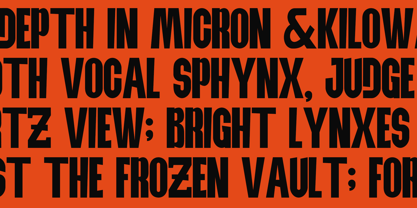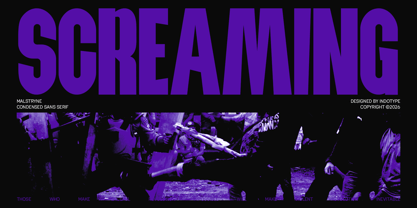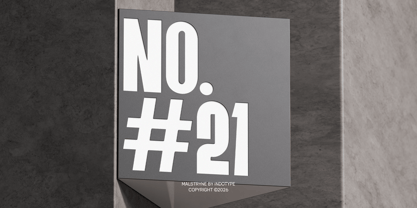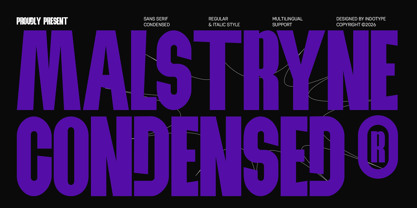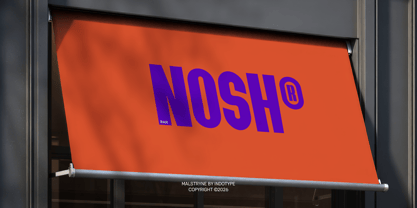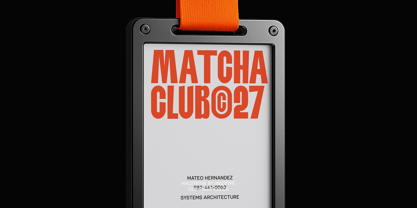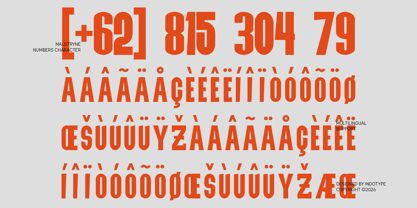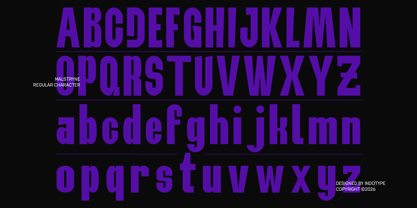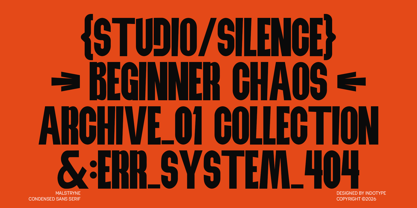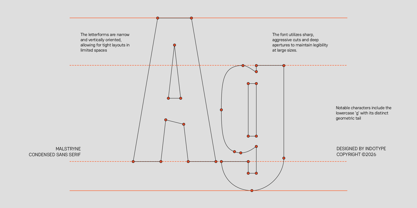
IT Malstryne
by Indotype
The IT Malstryne Font Family was designed by Frederik Aristaputra and published by Indotype. IT Malstryne contains 2 styles and family package options. More about this family
Malstryne is a commanding condensed sans-serif typeface designed for projects that demand presence within limited space. Its tightly packed letterforms, vertical emphasis, and strong shoulders create a dense, powerful texture that commands attention without sacrificing legibility. This is typography that stacks, compresses, and delivers impact—perfect for headlines, banners, and any application where every pixel counts. Available in both Regular and Italic styles with comprehensive multilingual support, Malstryne offers versatility across print and digital platforms. Its condensed nature makes it ideal for editorial headlines with character limits, packaging with narrow panels, sportswear branding, and urban design that needs to shout loud and clear. Malstryne proves that great things come in tight packages. • Ideal for: Editorial Headlines & Subheads, Magazine Covers, Packaging with Narrow Space, Sportswear & Athletic Branding, Poster & Banner Design, Urban & Streetwear Graphics. • Classification: Sans-Serif, Condensed, Display, Geometric. • Attributes: Bold, Tight, Powerful, Space-Efficient, Vertical, Modern, Impactful.